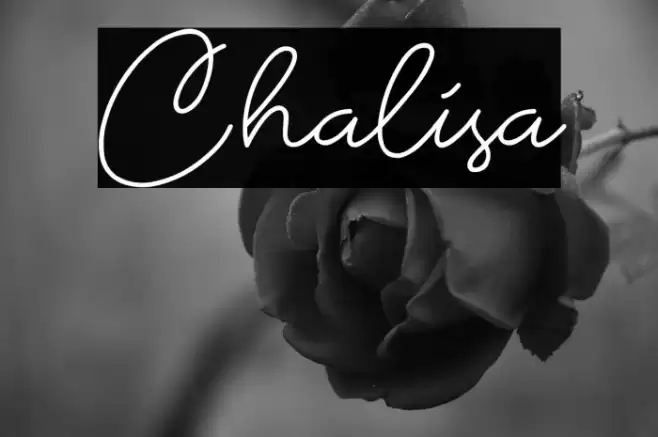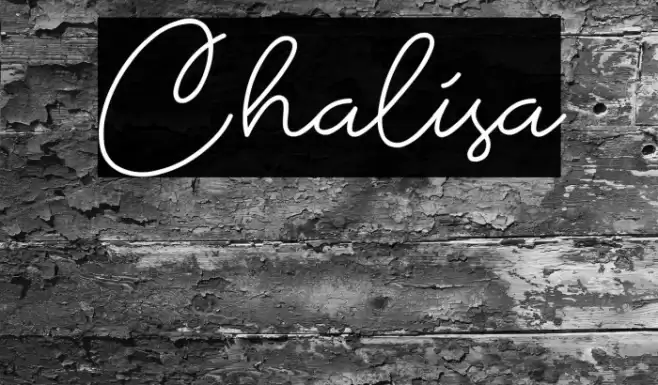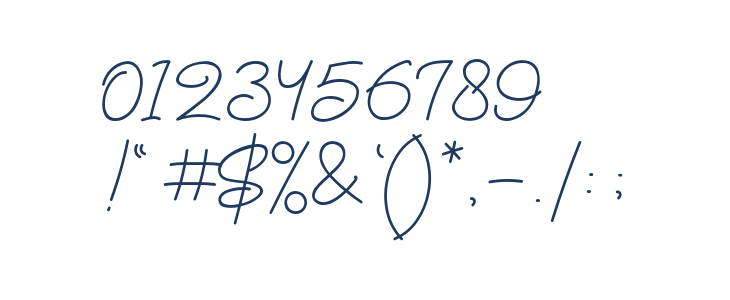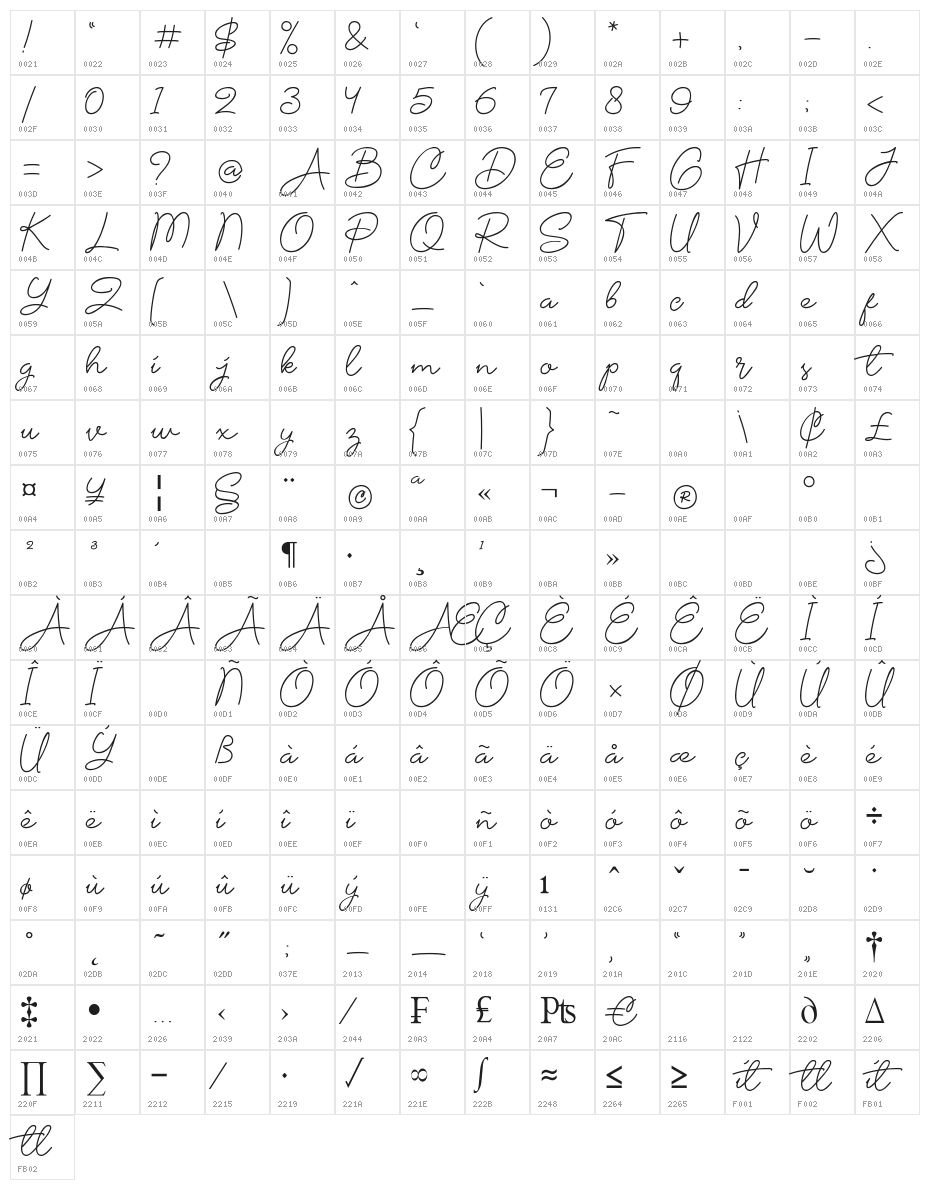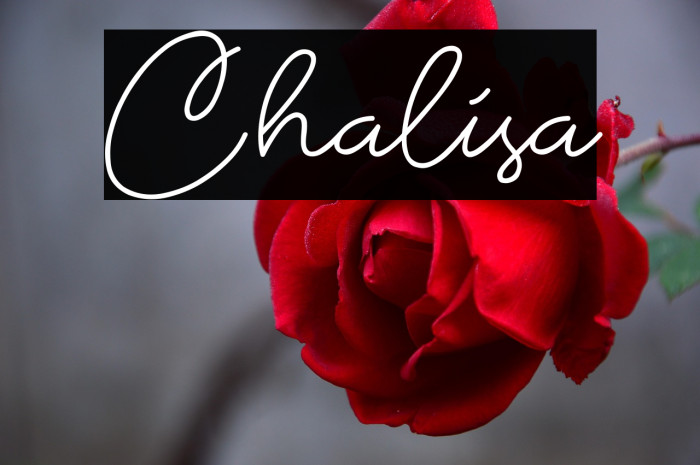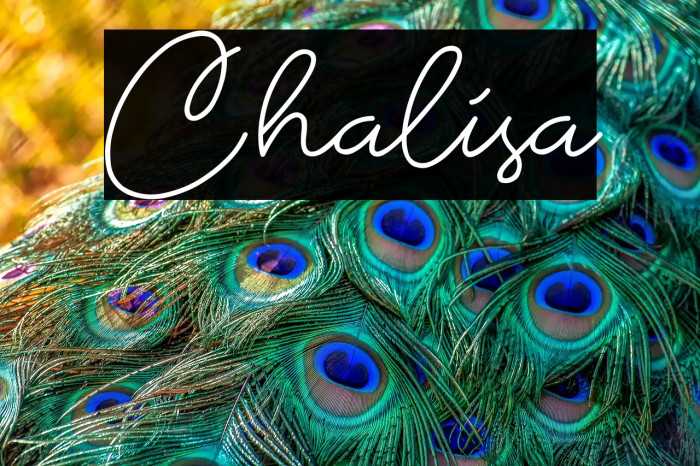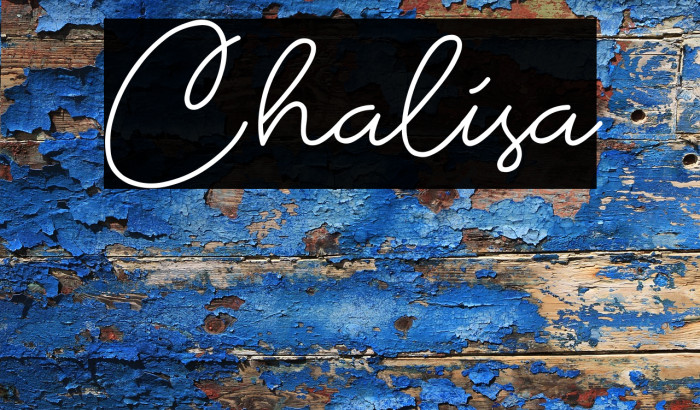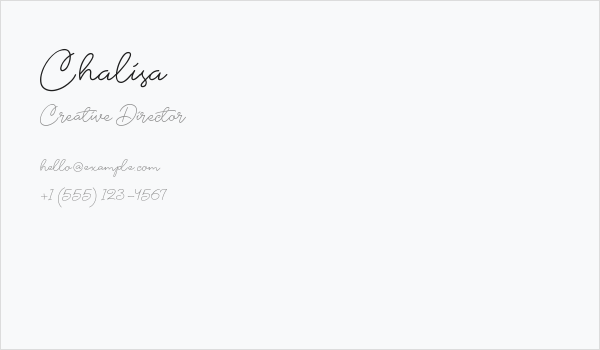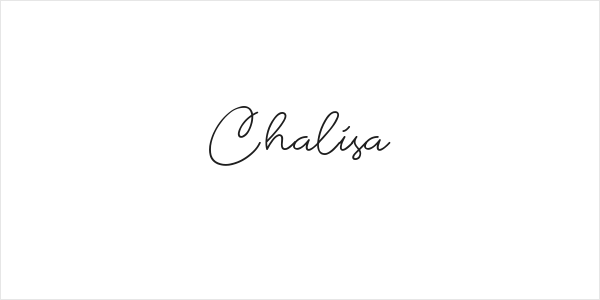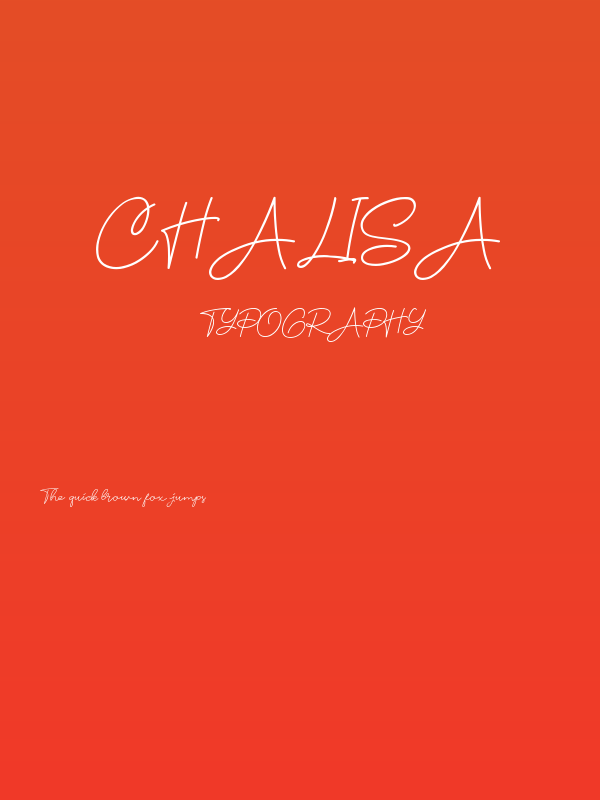
Chalisa Font
Chalisa Description
This font features an elegant and flowing script style, characterized by its smooth, continuous strokes that mimic the fluidity of handwriting. The uppercase letters are distinct with a slight slant, while the lowercase letters maintain a consistent baseline, enhancing readability. Numbers and special characters are crafted with the same attention to detail, ensuring a cohesive look across all elements. The font's design exudes a sense of sophistication and grace, making it suitable for projects that require a personal touch. Its balanced proportions and delicate curves make it versatile for various design needs.
A graceful and elegant script font with fluid, continuous strokes from Uncategorized fonts.
- Proposed Projects: Ideal for wedding invitations, greeting cards, personal branding, and elegant logos.
- Overall Style: Elegant
- Use Case: Logos, Invitations, Personal Branding